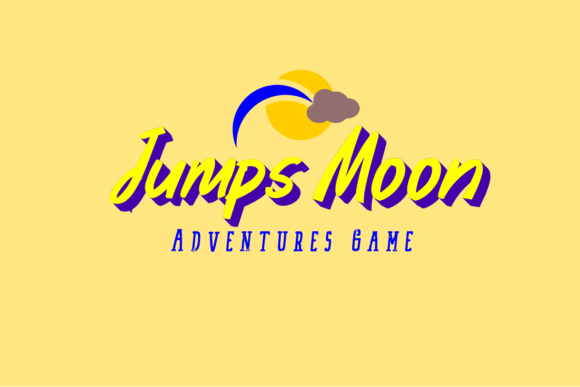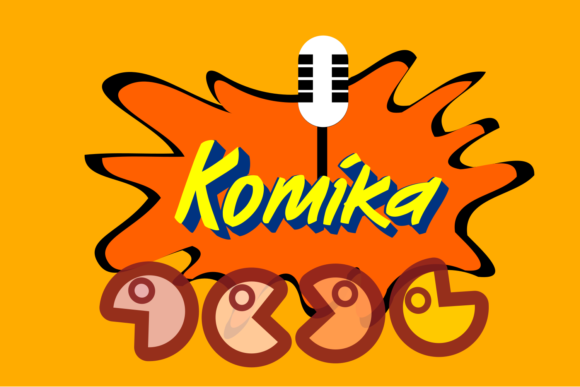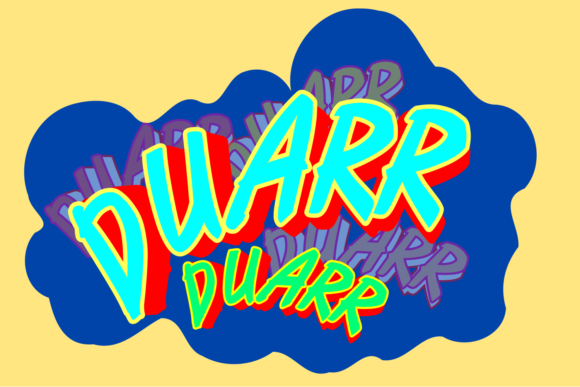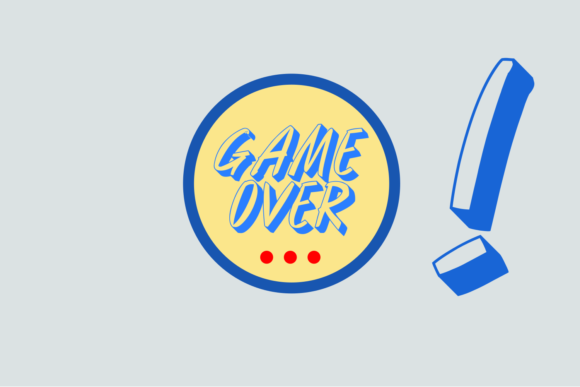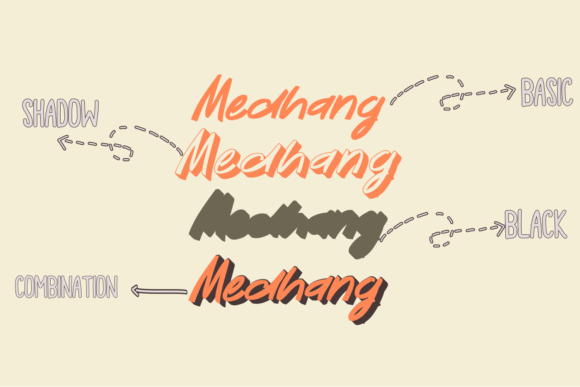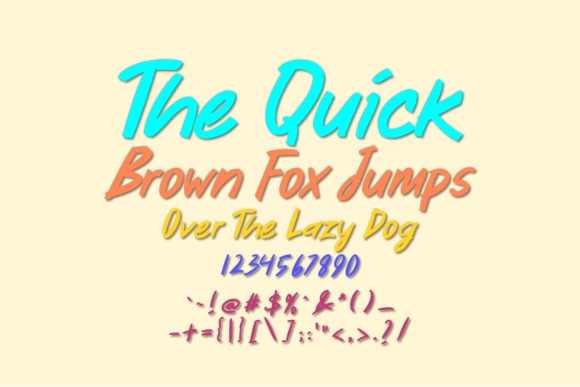
Introduction to Medhang Font
Medhang is a cute and fun display font.
It embodies playfulness and authenticity and is the perfect choice for any children activity or school project Add this chunky lettered font to your designs and notice how it makes them come alive.